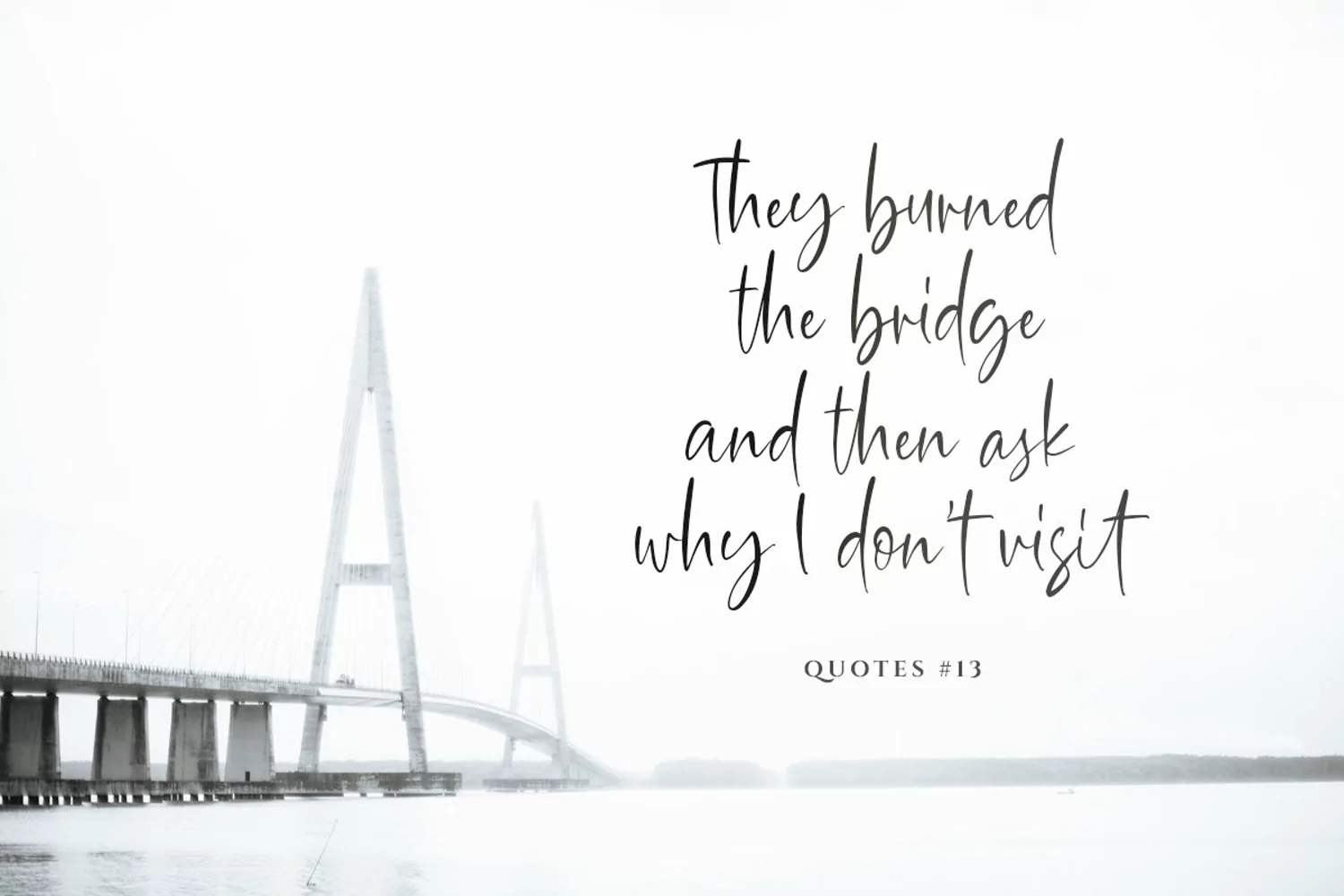
Goldbrick Script is a natural handwritten script that contain lowercase, uppercase, symbol, and also support multi language. Comes with ligature, contextual alternates, stylistic alternates, also initial and terminal swash. Goldbrick Script also suitable for logo branding, beautiful fashion design, suitable for wedding invitation, or handwritten quote. Also already PUA Encoded.